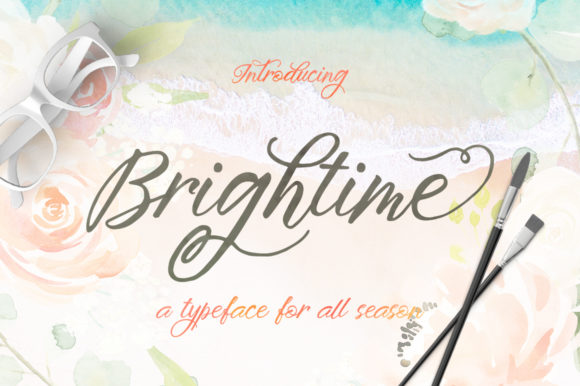
Discover the Unique Charm of Brightime Font: Authenticity Meets Legibility
Brightime font has taken the design world by storm with its extraordinary blend of pure authenticity and great legibility. This remarkable typeface is perfect for all seasons, making it a versatile choice for designers and crafters looking to add a touch of elegance to their projects. In this article, we’ll dive into the world of Brightime font, exploring its features, benefits, and uses.
The Birth of Brightime Font
Brightime font is a carefully crafted typeface that combines the best of both worlds: authenticity and legibility. Its unique design makes it stand out from other fonts, offering a fresh perspective for designers and crafters. Whether you’re working on a branding project, creating a stunning visual display, or simply looking for a font that exudes elegance, Brightime is an excellent choice.
What Makes Brightime Font So Special?
So, what sets Brightime font apart from other typefaces? Here are a few key features that make it an extraordinary font:
- Pure Authenticity: Brightime font boasts an authentic design that exudes a sense of honesty and transparency. Its unique character makes it perfect for projects that require a genuine touch.
- Great Legibility: Despite its unique design, Brightime font remains highly legible, making it suitable for a wide range of applications, from body text to headings.
- Versatility: Brightime font is perfect for all seasons, making it a versatile choice for designers and crafters. Whether you’re working on a summer-themed project or a winter-inspired design, Brightime font will adapt seamlessly.
Benefits of Using Brightime Font
Brightime font offers numerous benefits for designers and crafters. Here are a few reasons why you should consider using this extraordinary font:
- Elegance and Sophistication: Brightime font adds a touch of elegance and sophistication to any project, making it perfect for high-end branding, luxury packaging, and more.
- Improved Readability: With its great legibility, Brightime font ensures that your message is conveyed clearly and effectively, making it ideal for body text, headings, and titles.
- Unique Character: Brightime font’s authentic design sets it apart from other typefaces, giving your project a distinctive look that will capture the attention of your audience.
Using Brightime Font in Your Design Projects
Brightime font is an incredibly versatile typeface that can be used in a wide range of design projects. Here are a few ideas to get you started:
- Branding and Logo Design: Use Brightime font to create a unique and memorable brand identity that exudes elegance and sophistication.
- Packaging Design: Add a touch of luxury to your packaging design with Brightime font, perfect for high-end products and premium brands.
- Visual Displays: Create stunning visual displays with Brightime font, ideal for exhibitions, trade shows, and retail environments.
Tips and Tricks for Working with Brightime Font
To get the most out of Brightime font, here are a few tips and tricks to keep in mind:
- Experiment with Font Sizes: Brightime font looks great in a variety of font sizes, from large headings to smaller body text.
- Play with Color: Brightime font is highly versatile and can be paired with a wide range of colors, from bold and bright to soft and pastel.
- Mix and Match: Don’t be afraid to mix and match Brightime font with other typefaces to create a unique and visually appealing design.
| Font Name | Brightime Font |
| Author | Stripes Studio |
Brightime font is an extraordinary typeface that combines pure authenticity with great legibility. Its unique design makes it perfect for all seasons, and its versatility ensures that it can be used in a wide range of design projects. Whether you’re a designer or crafter, Brightime font is an excellent choice for adding a touch of elegance and sophistication to your work.